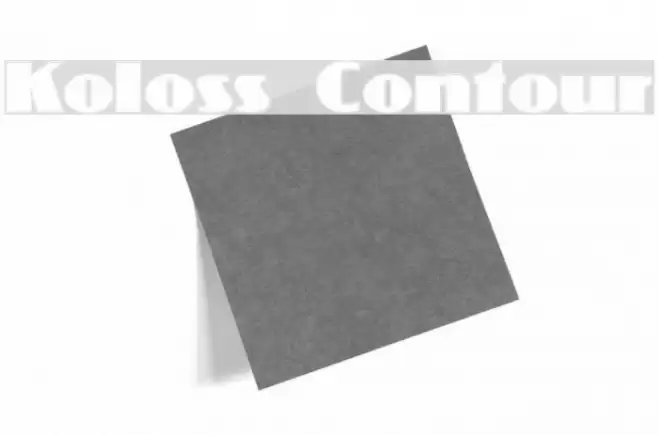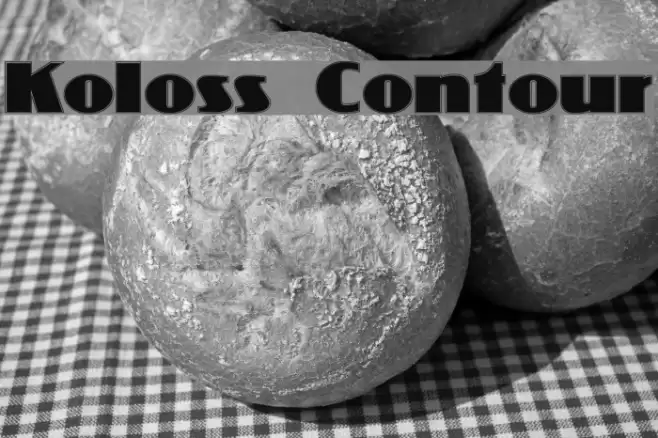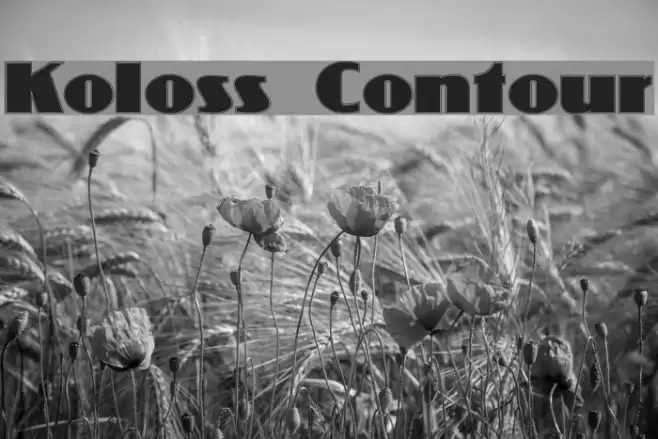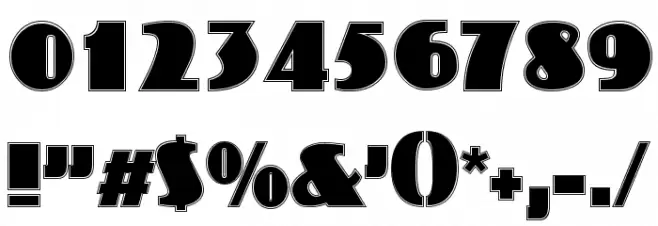
Koloss Contour Font
Koloss Contour Description
This font features a bold and striking design with a strong presence. Each character is outlined, creating a contour effect that adds depth and dimension. The uppercase letters are robust and commanding, while the lowercase letters maintain a consistent weight and style. The numerals are equally bold, ensuring readability and impact. Special characters are designed with the same contour effect, providing a cohesive look across all elements. This font's unique style makes it ideal for projects that require a strong visual impact.
A bold, contoured font with a strong visual presence from Uncategorized fonts.
- Proposed Projects: Ideal for posters, headlines, branding, and any design requiring a bold statement.